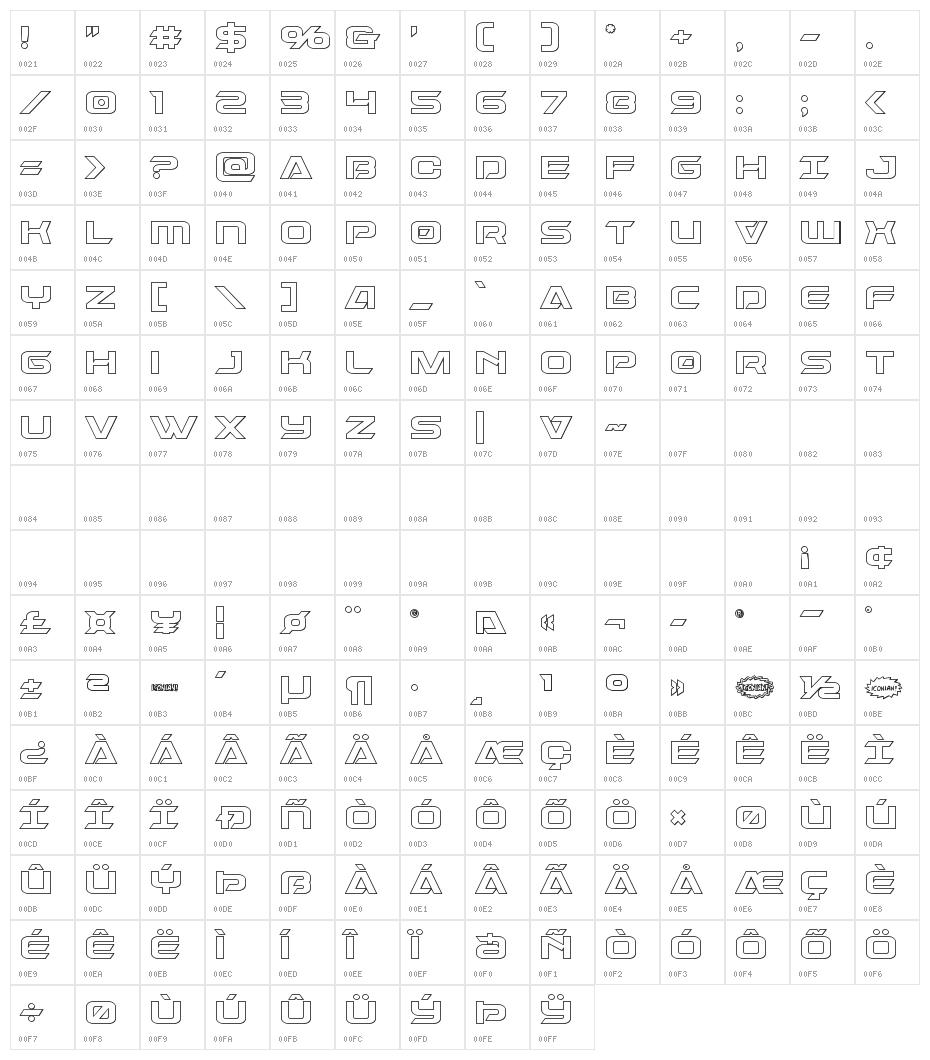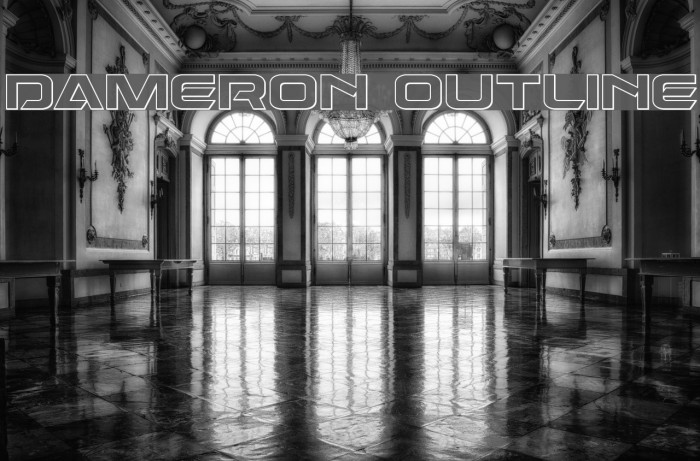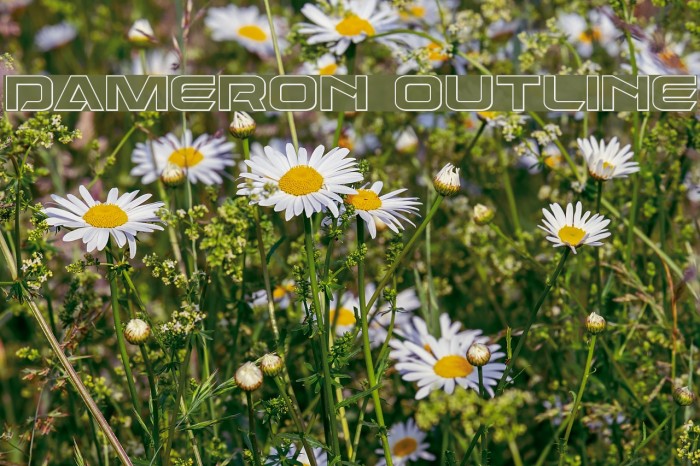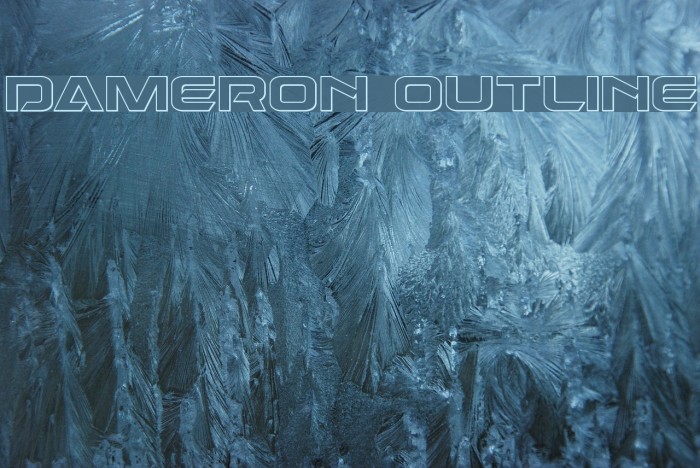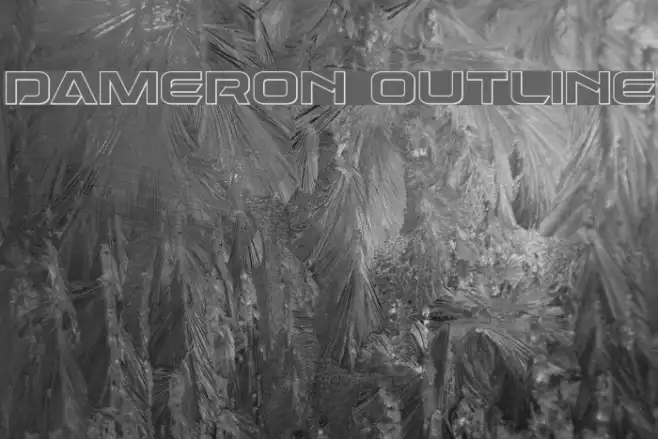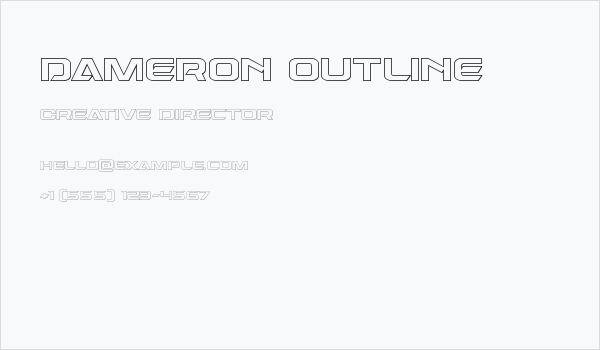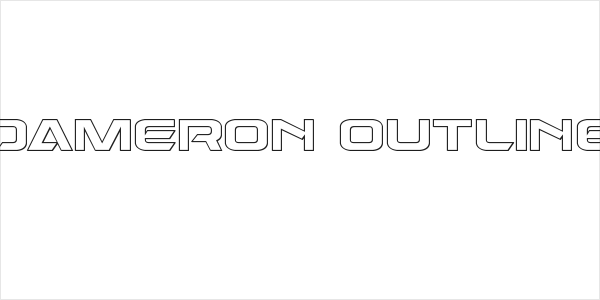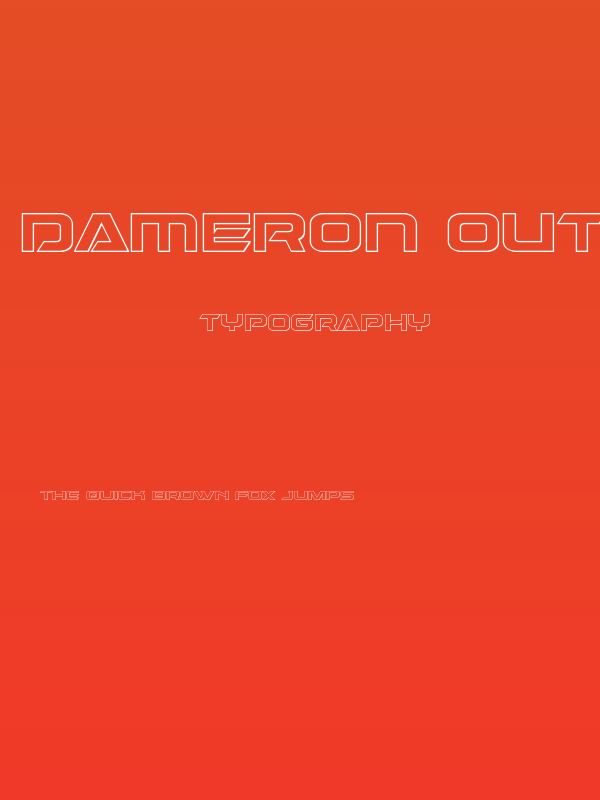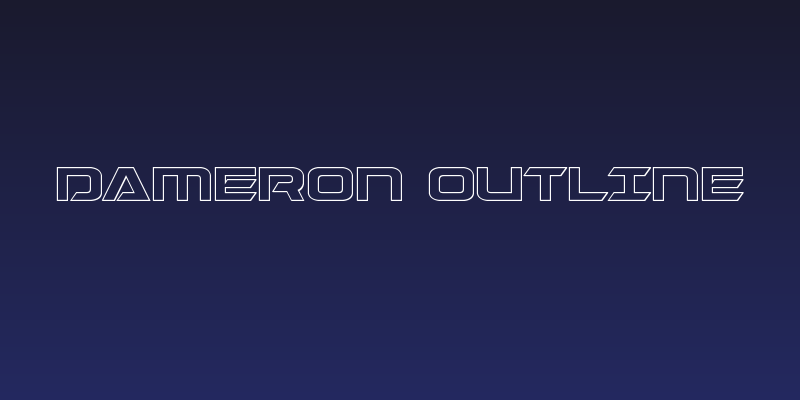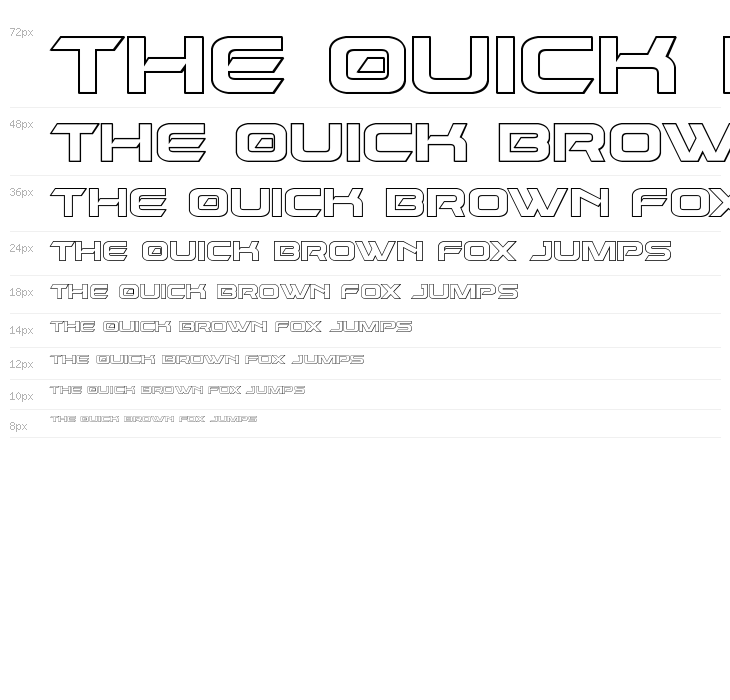
Dameron Outline Font
Dameron Outline Description
This font features a futuristic and geometric outline style, characterized by its bold and angular letterforms. The uppercase and lowercase letters share a consistent design, with sharp edges and a uniform stroke width that creates a cohesive look. The numerals and special characters maintain the same aesthetic, ensuring visual harmony across all elements. The font's outline nature gives it a unique, airy appearance, making it stand out in any design. Its modern and sleek design is perfect for projects that require a contemporary and tech-inspired feel.
| Proposed Projects | Ideal for sci-fi themed posters, tech company logos, video game titles, and modern branding projects. |